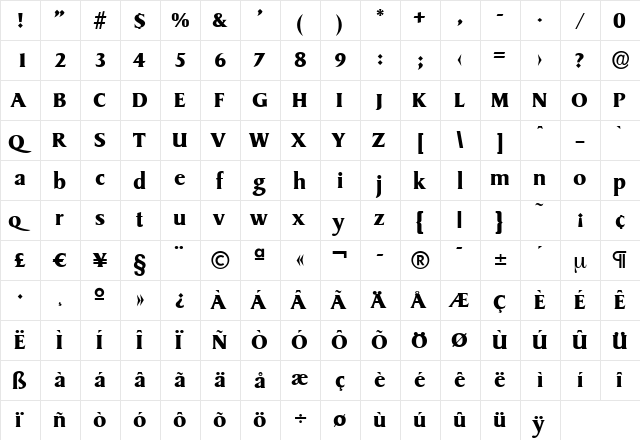
RudyBecker Bold
Design Context for RudyBecker Typeface
RudyBecker is a composed and adaptable typeface that performs quietly and consistently across a wide range of design contexts. Its bold stroke weight gives it real presence on the page.